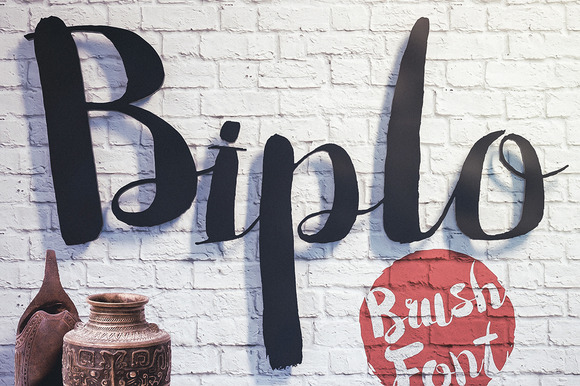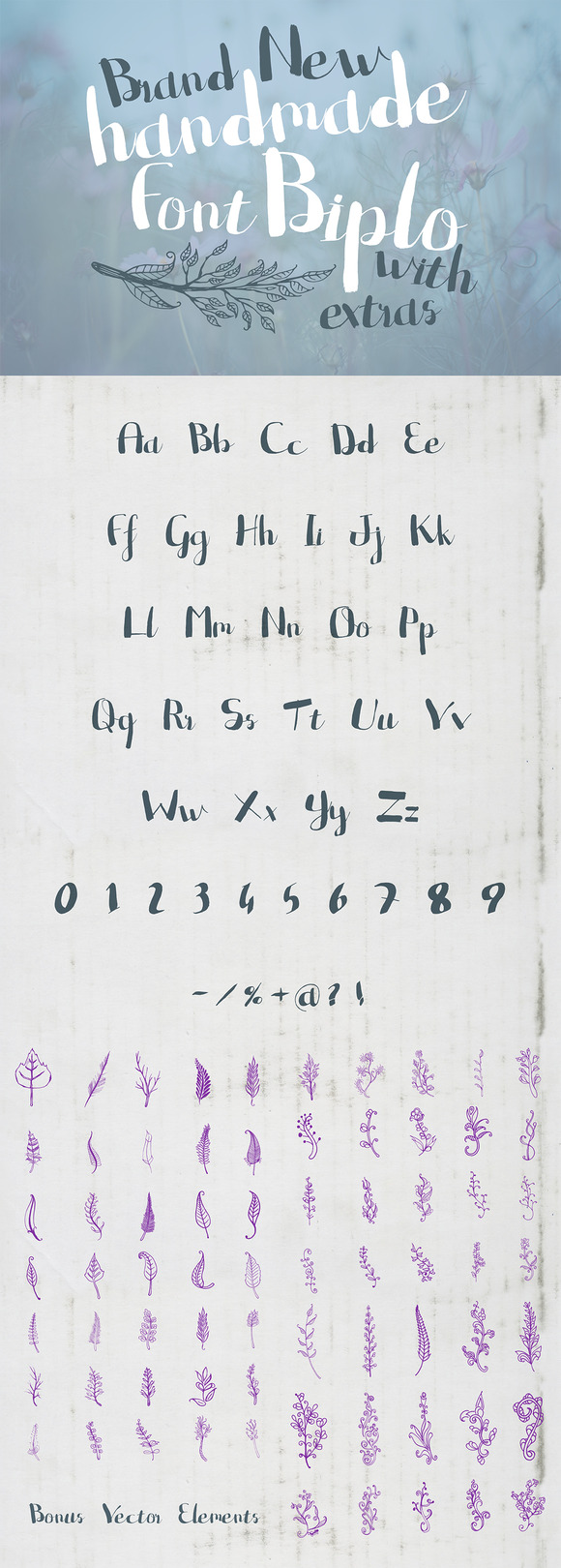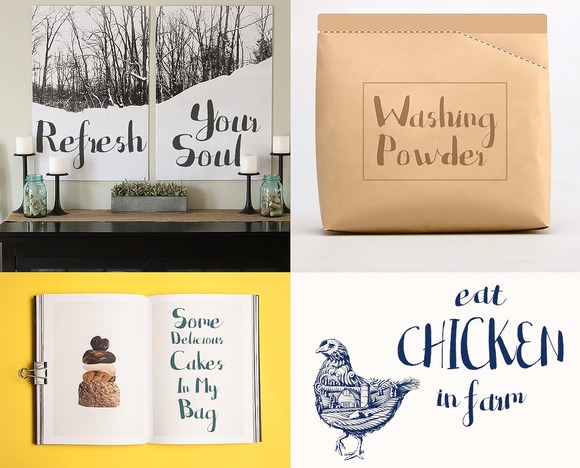
Biplo Brush Font + Vector Elements
Biplo is a brand new hand made script font. Also includes some great vector elements. Awesome for your watercolor based, vintage or retro works. Bold and readable. Completely unique and created with hard watercolor brush.